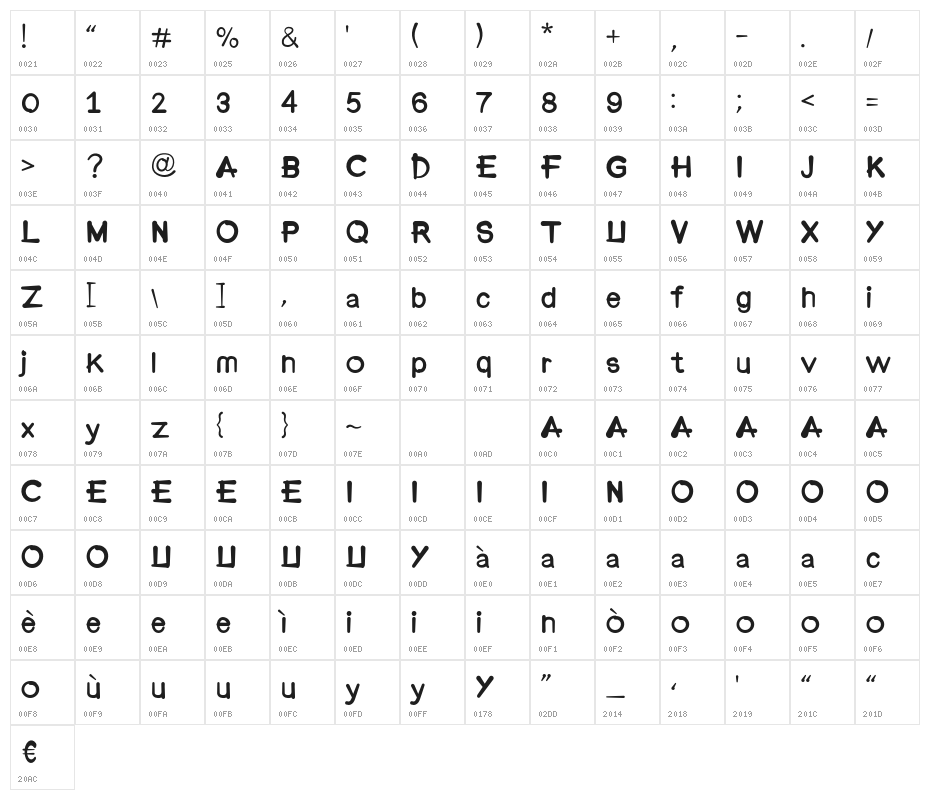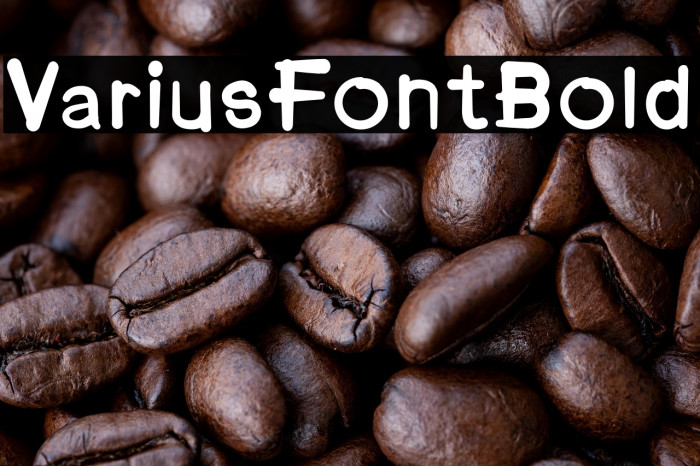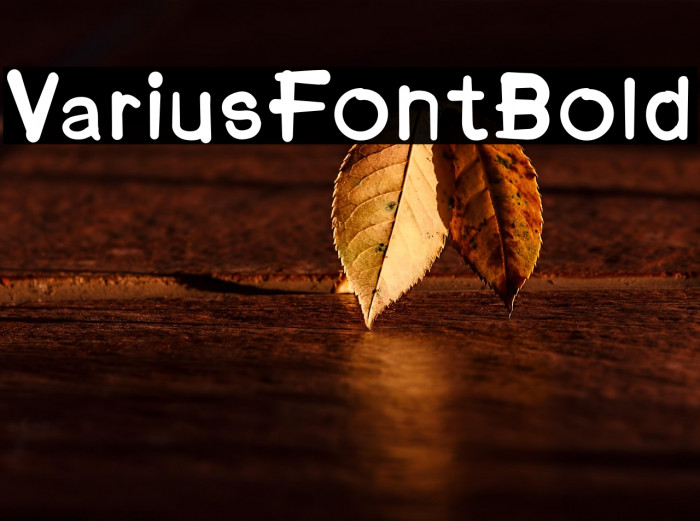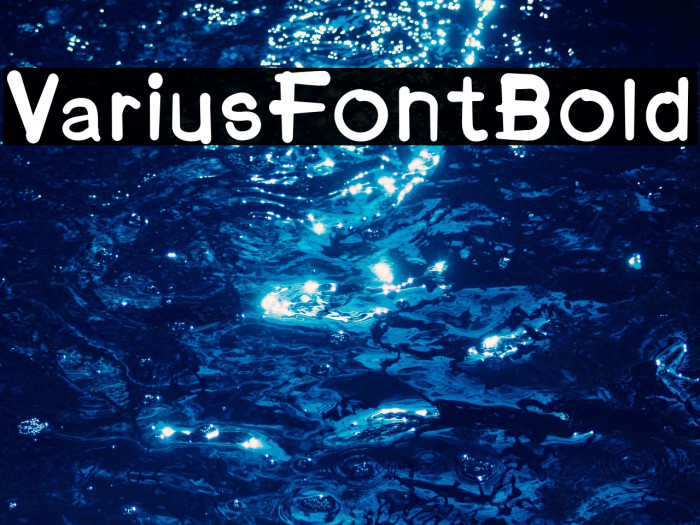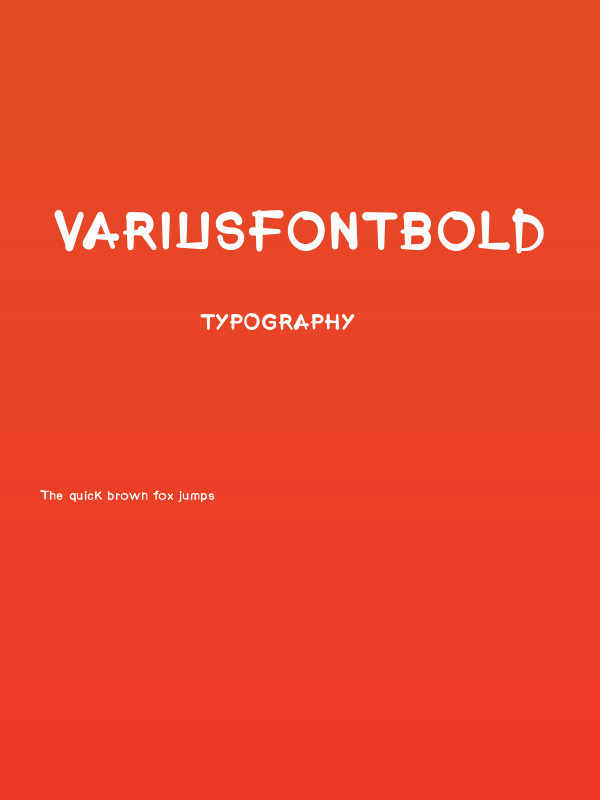
VariusFontBold Font
VariusFontBold Description
This font features a playful and bold style with rounded edges and a slightly irregular form, giving it a hand-drawn appearance. The characters are thick and substantial, making them highly visible and impactful. The uppercase letters are consistent in height, while the lowercase letters maintain a uniform baseline with some variations in ascenders and descenders. The numerals are bold and clear, matching the overall style of the alphabet. Special characters are included, maintaining the same bold and playful aesthetic. This font is suitable for projects that require a fun and engaging look.
| Proposed Projects | Ideal for children's books, playful branding, posters, and creative projects. |